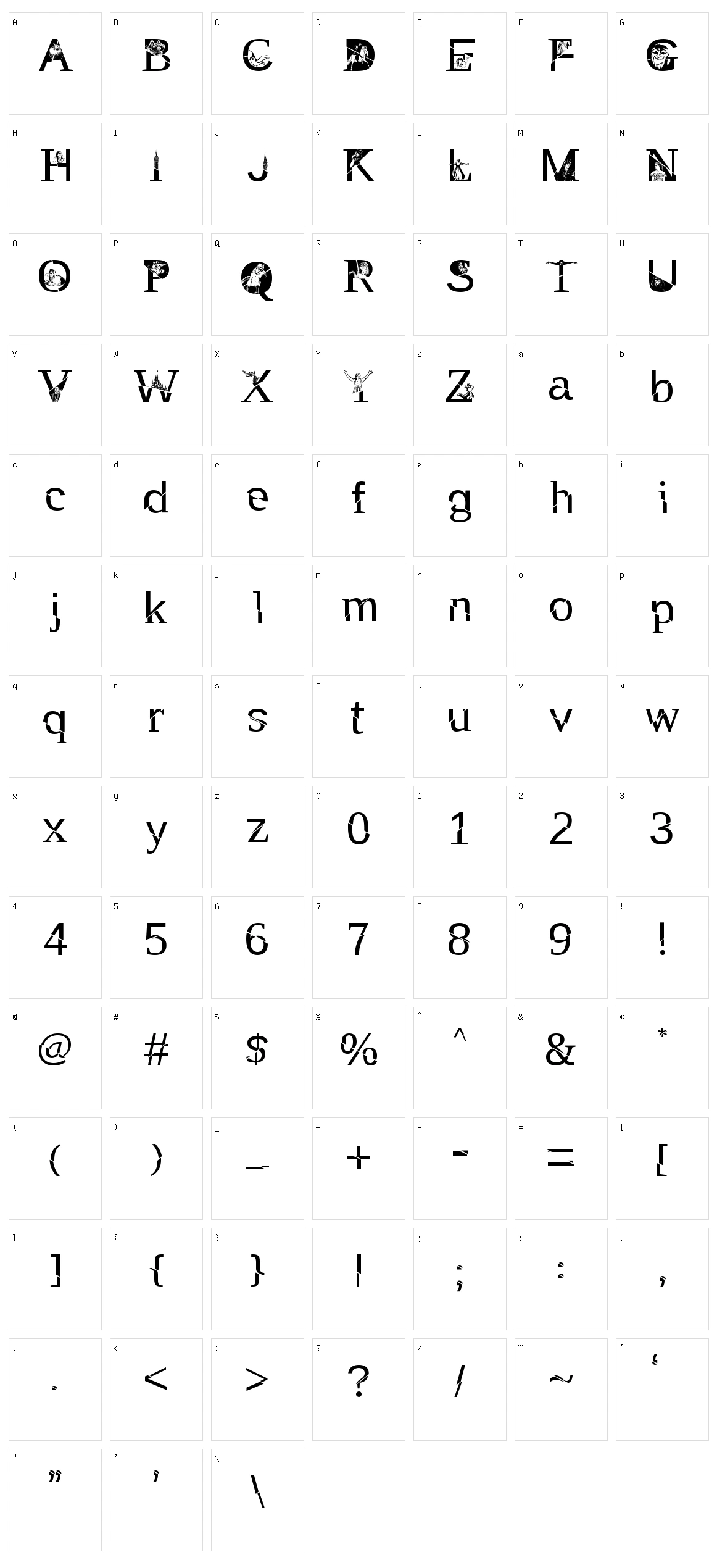
In Fact, this is my homework...
So the quality is not high.
Sans serif part represent the real world, and the serif part represent the fairy tales world.